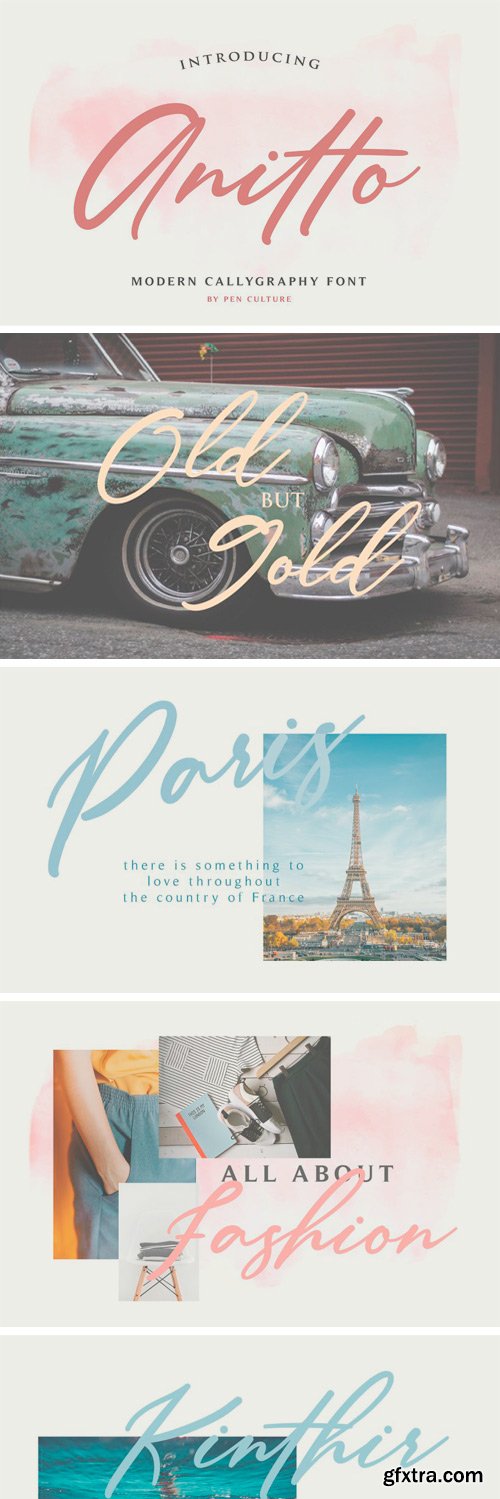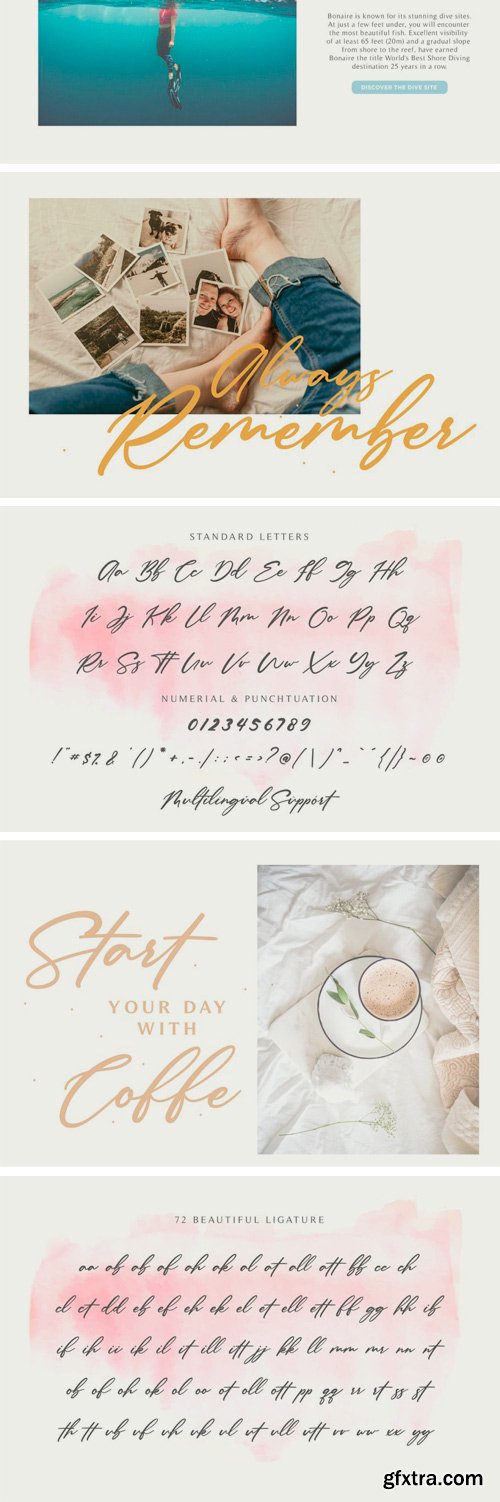
Anitto Calligraphy Font inspired by the beauty of Sunday morning in a village. Anitto Calligraphy Font font has smooth and beautiful curves, so would be perfect for all types.